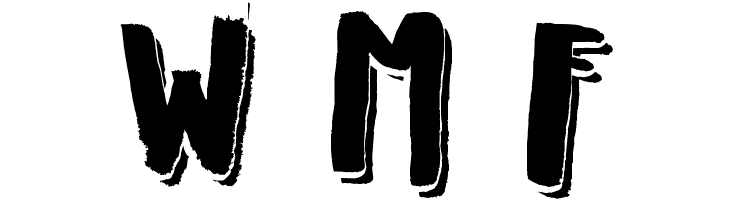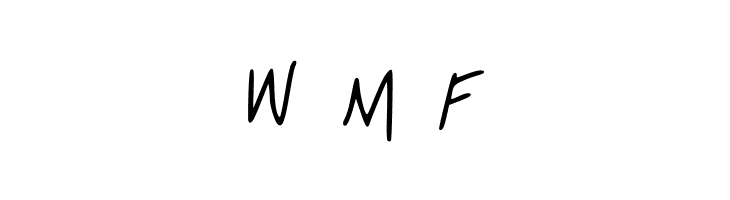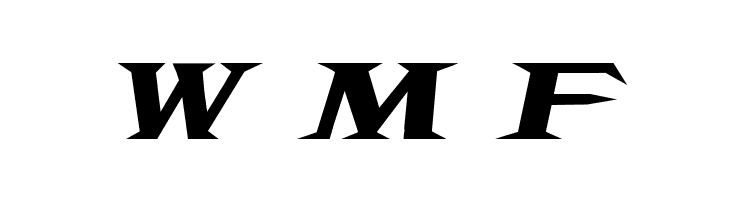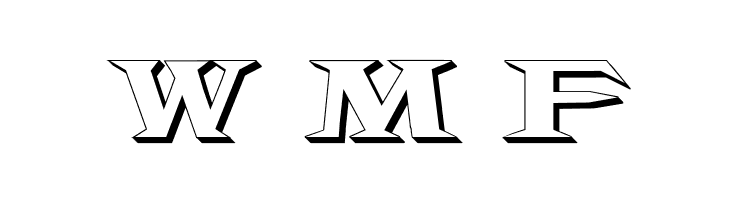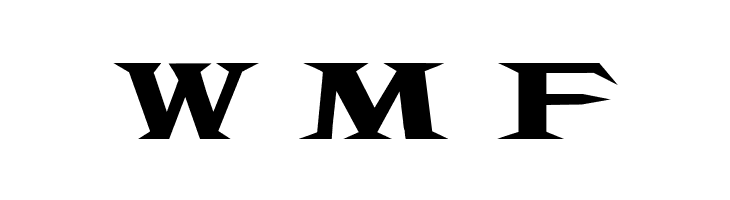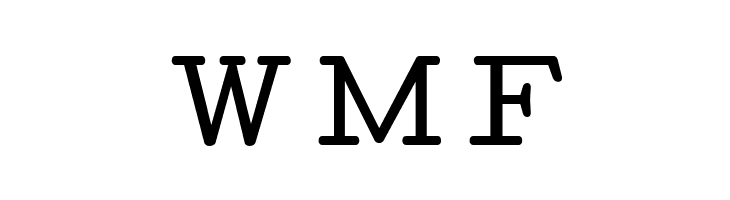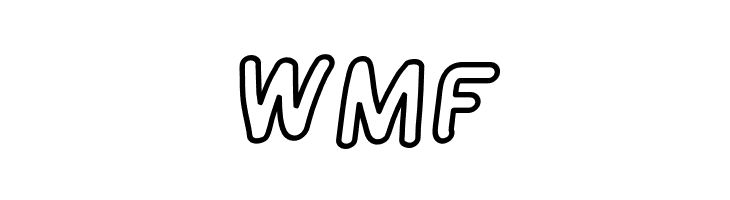
( Fonts by Leonard Posavec )
A bold, hand-painted style font with textured, expressive characters.
( Fonts by Chelsea Muchantef )
A playful, informal handwritten font with a casual and friendly style.
A bold, italic font with sharp, angular edges and high contrast.
A bold, three-dimensional font with sharp angles and a futuristic style.
A bold, gothic-inspired font with sharp, angular serifs and intricate detailing.
A bold, decorative font with sharp angles and a shadow effect, ideal for dramatic designs.
A bold, playful, hand-drawn font with a dynamic and energetic style.
A modern serif font with clean lines and elegant serifs.